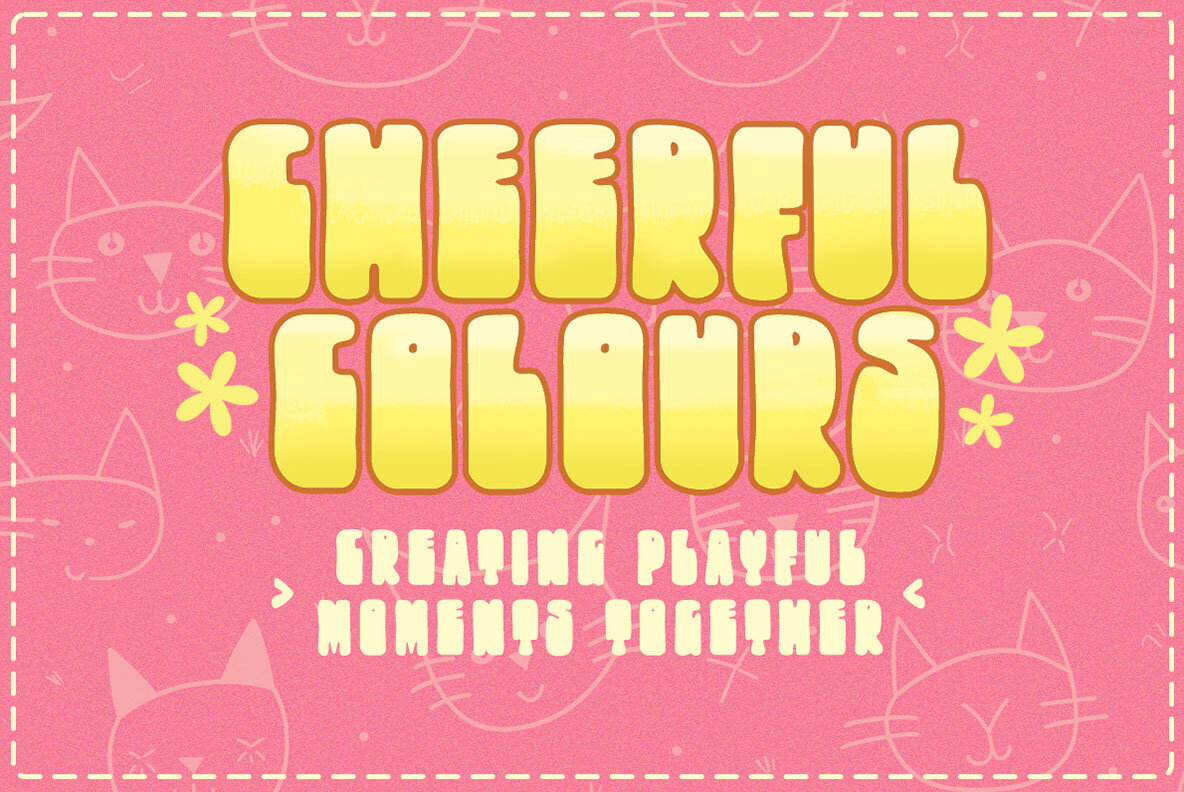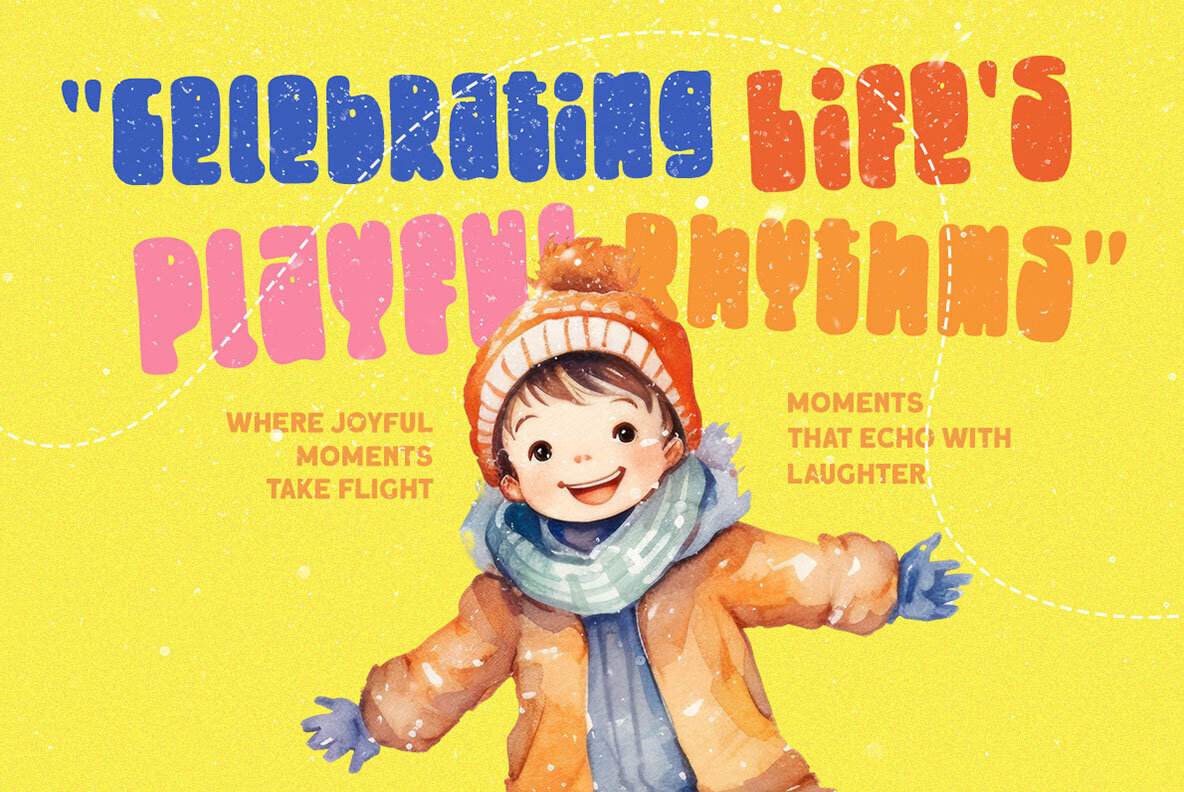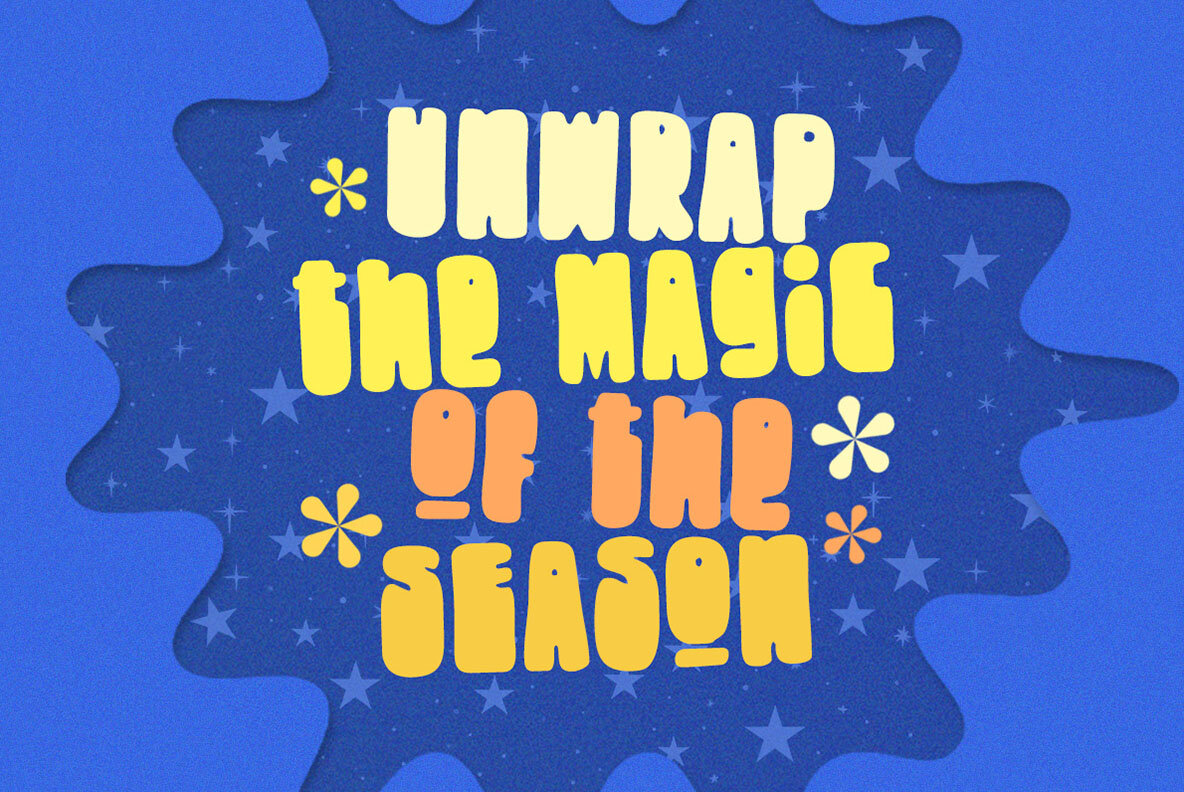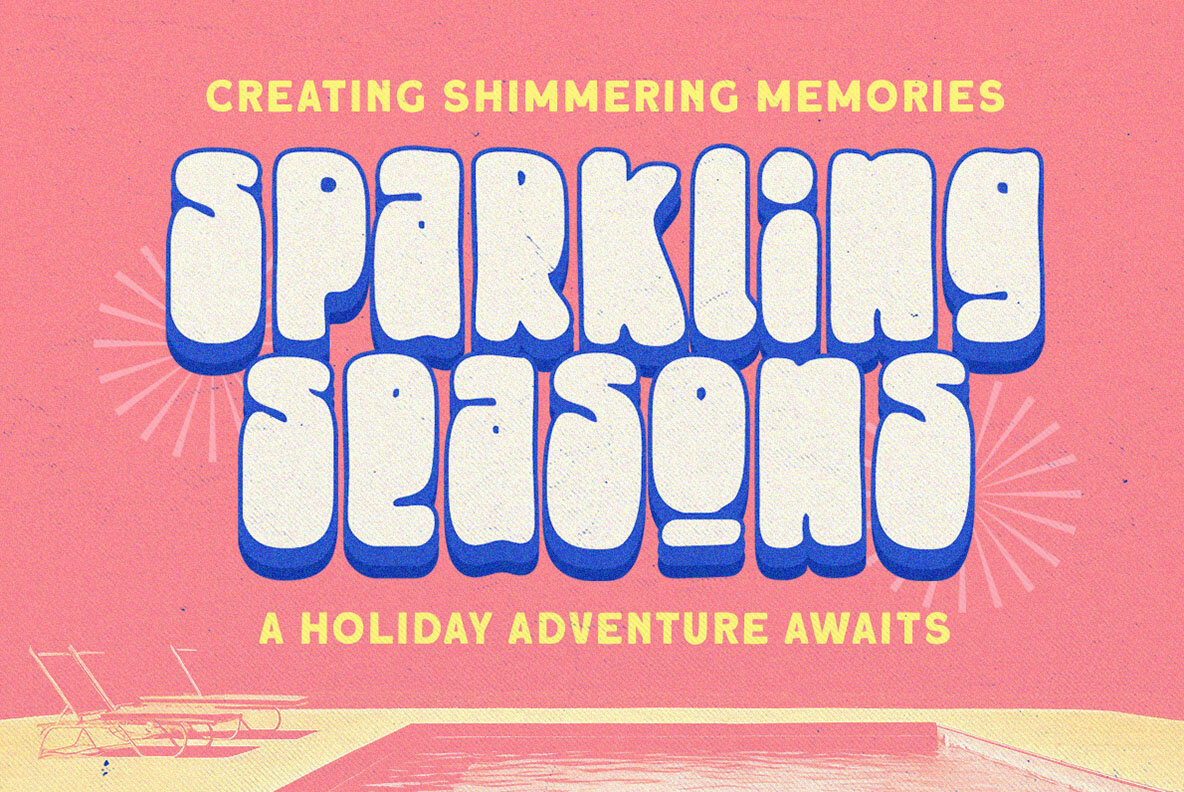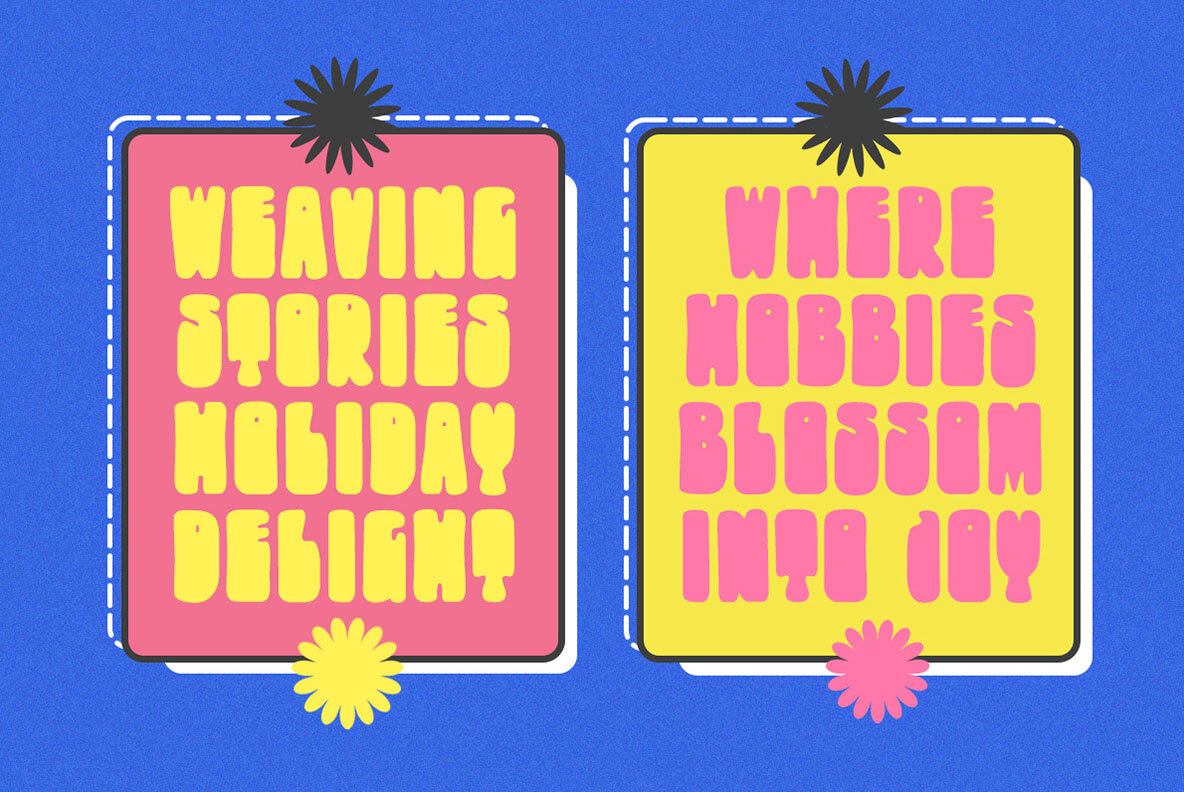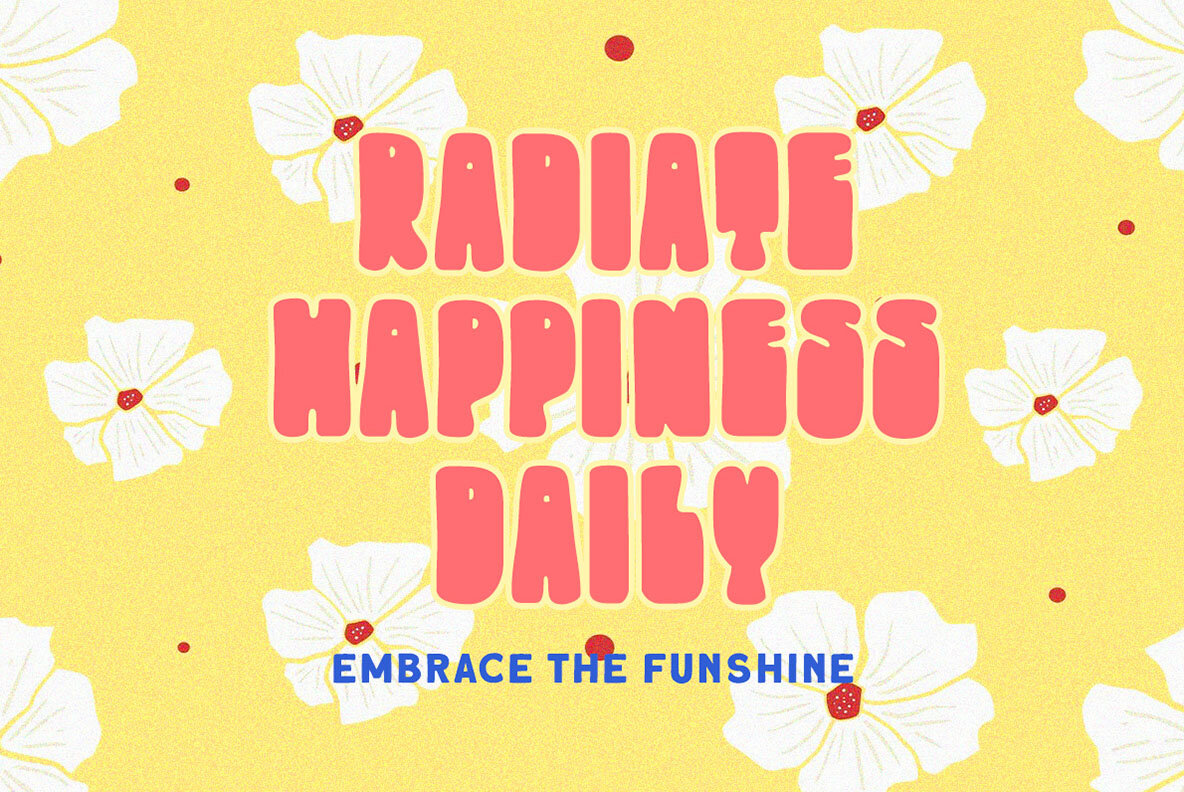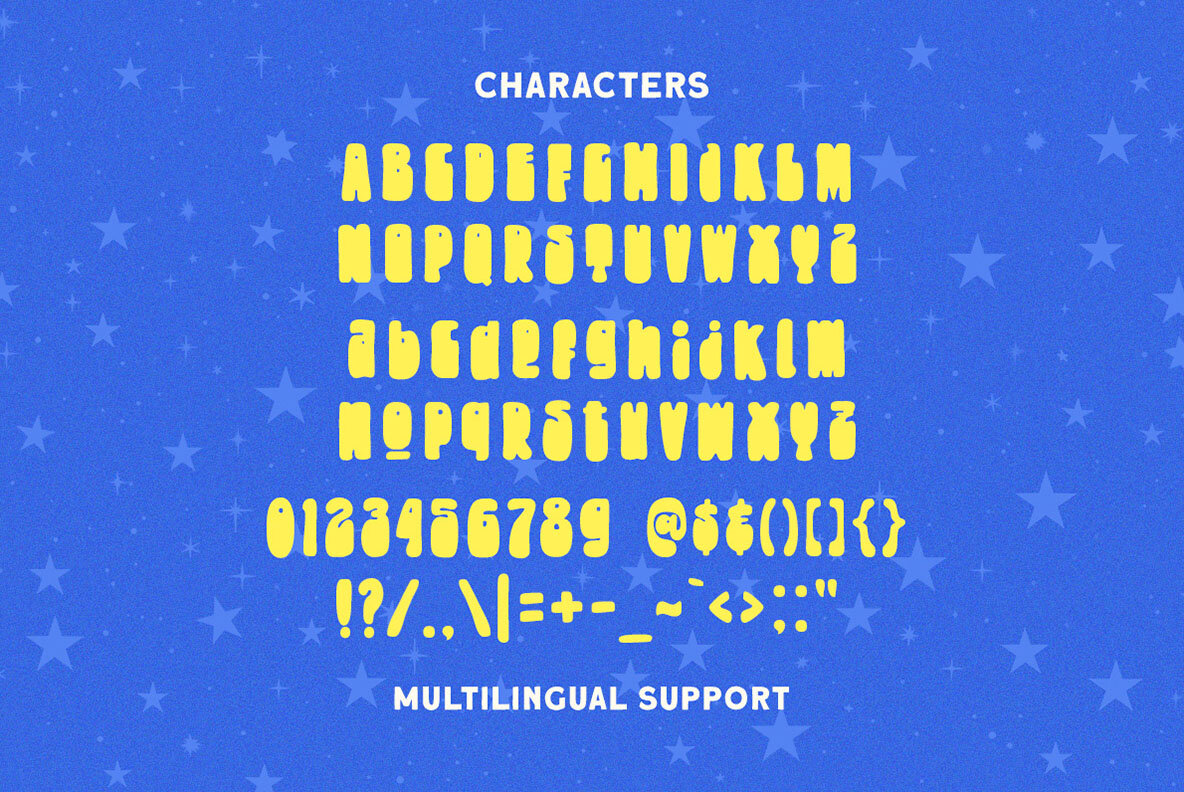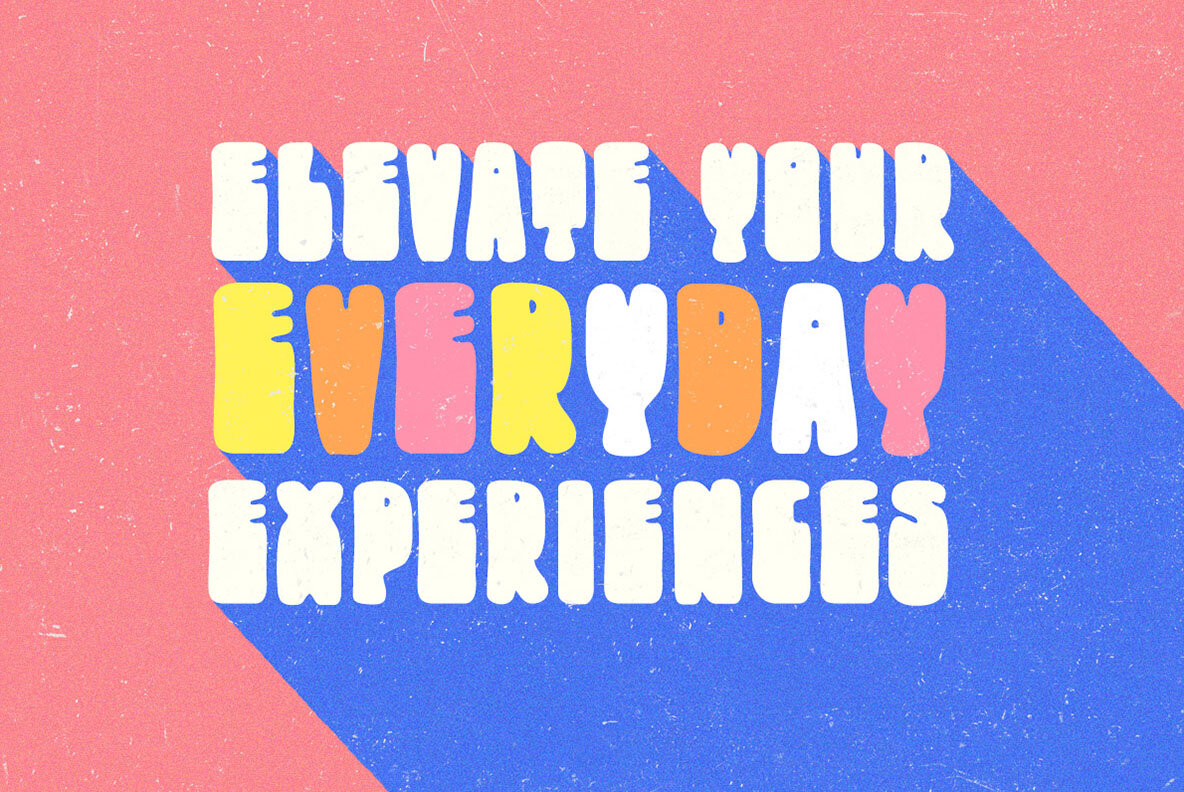
Chuckle Splash Font
Chuckle Splash is a boxy display font with playful vibes. This font perfectly made to be applied especially in logo, and the other various formal forms such as invitations, labels, logos, magazines, books, greeting / wedding cards, packaging, fashion, make up, stationery, novels, labels or any type of advertising purpose. Features: We highly recommend using a program that supports OpenType features and Glyphs panels like many of Adobe apps and Corel Draw, so you can see and access all Glyph variations.